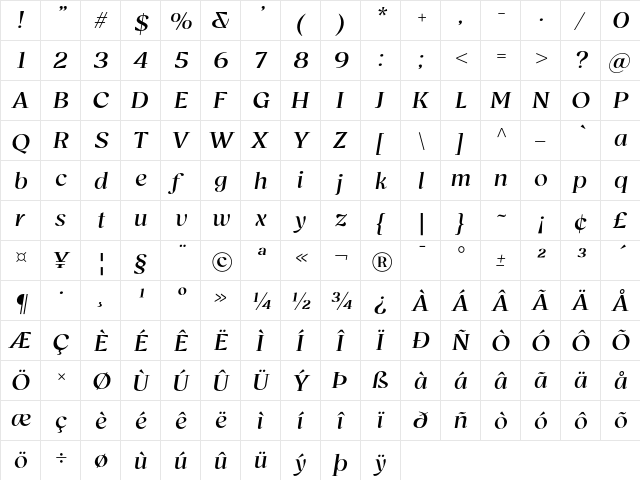
Bovino Trial Italic
Design Context for Bovino Trial Typeface
Bovino Trial is a composed and adaptable typeface that performs quietly and consistently across a wide range of design contexts. Its italic angle brings a sense of urgency and motion to the letterforms.
Pro Tip: Try Bovino Trial for annotation and caption copy alongside an upright companion — the contrast in angle creates a dynamic but ordered typographic system.